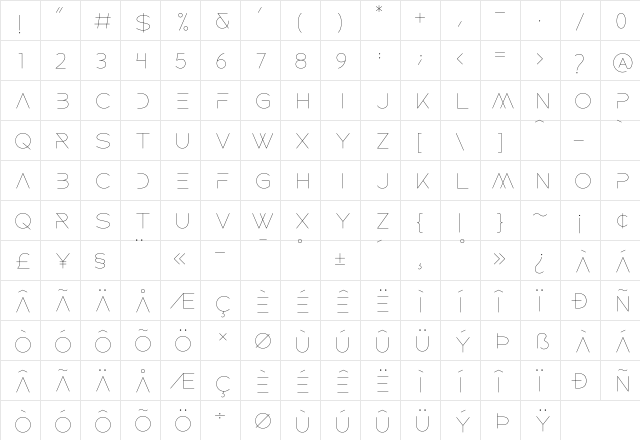
ROCKETWILDNESS Regular
Design Context for ROCKETWILDNESS Typeface
ROCKETWILDNESS is a composed and adaptable typeface that performs quietly and consistently across a wide range of design contexts.
Pro Tip: Use ROCKETWILDNESS in both headline and body roles to test its range before committing to a single application.